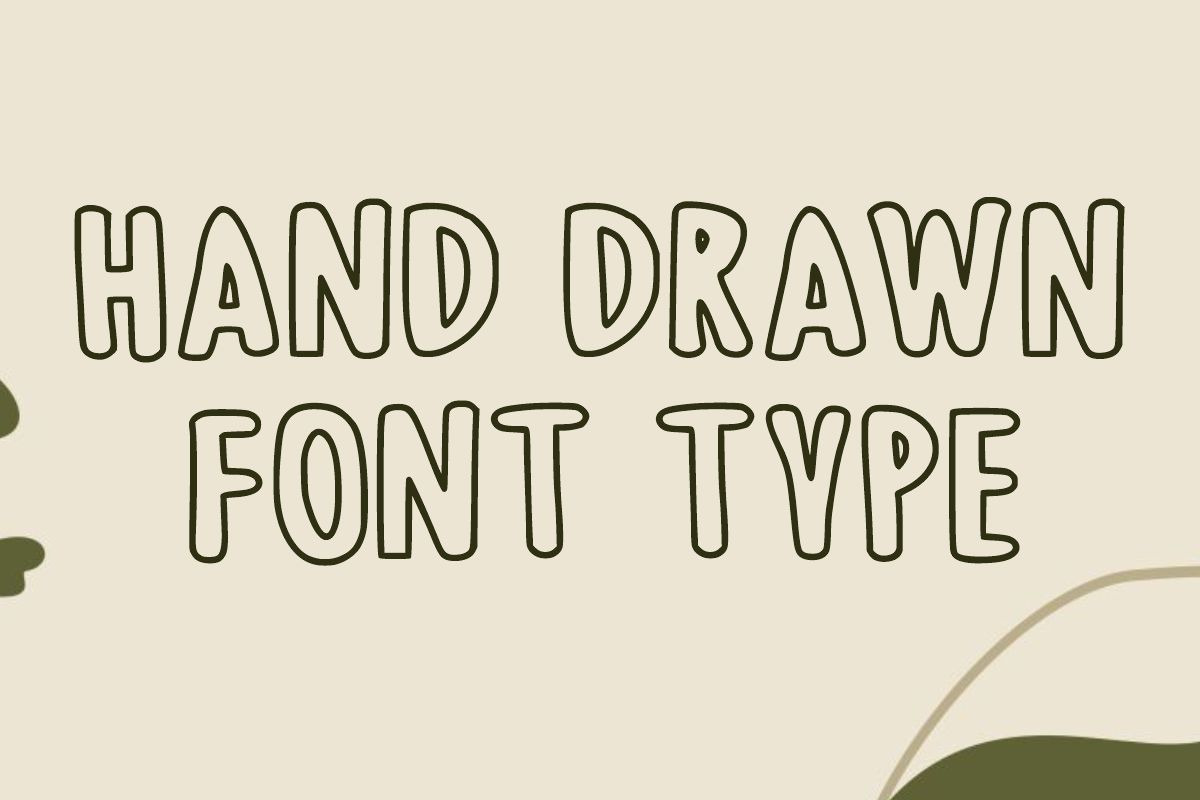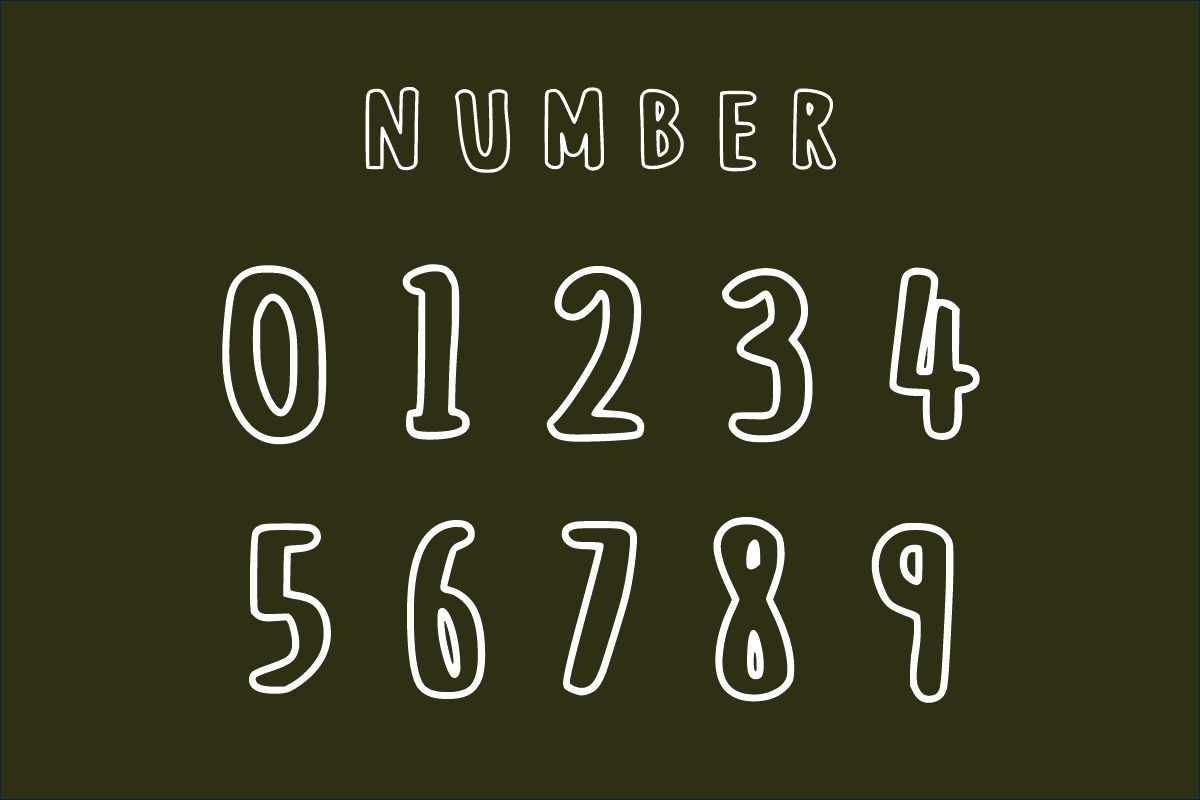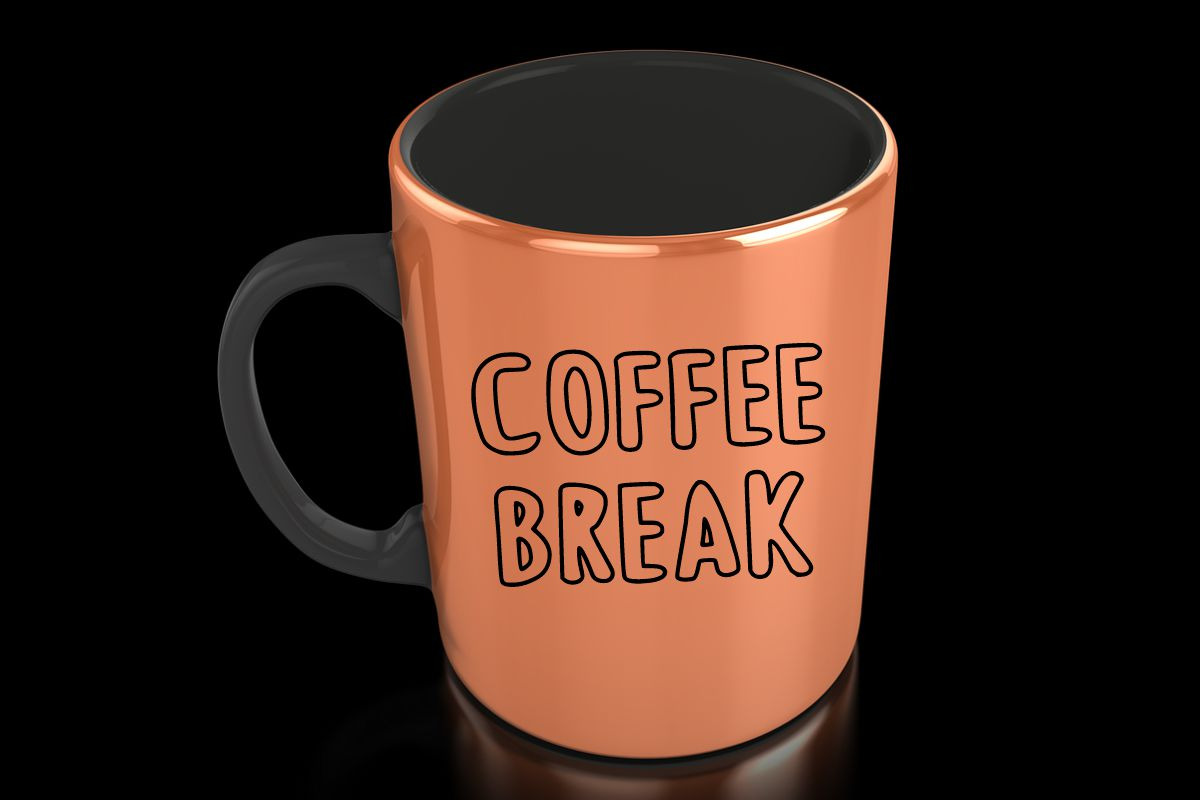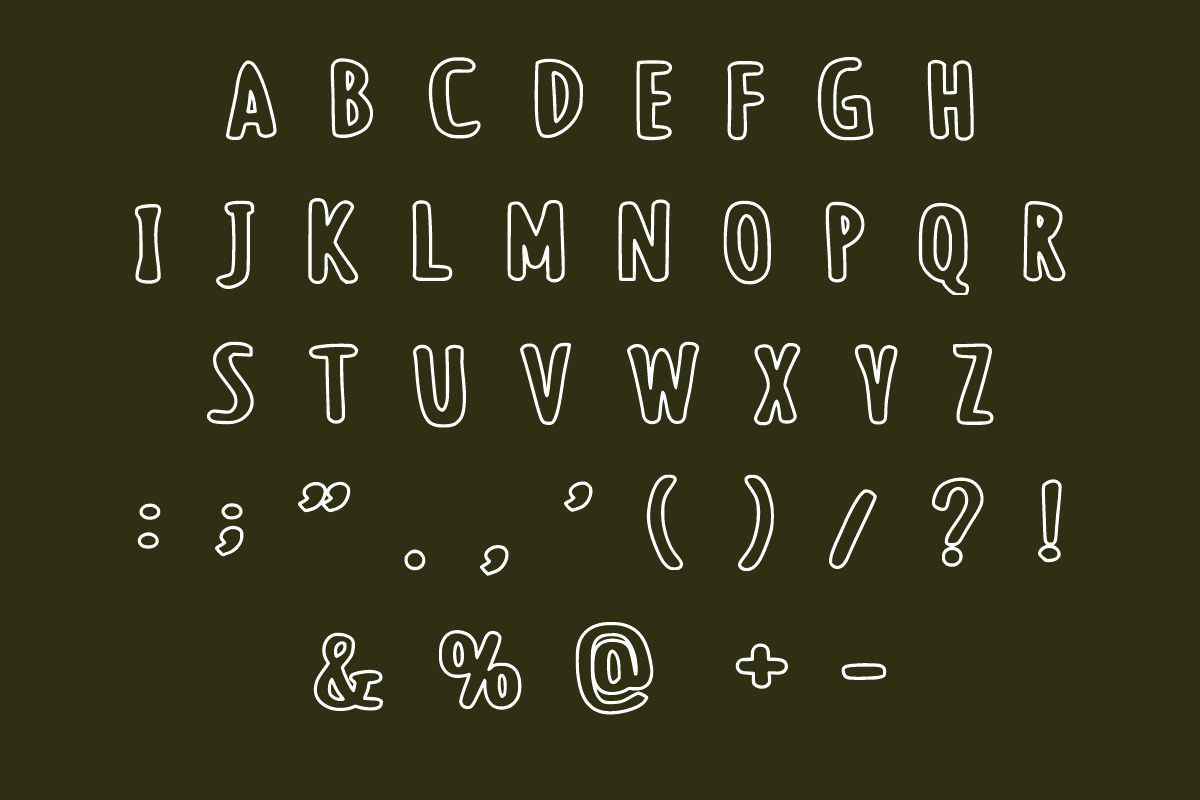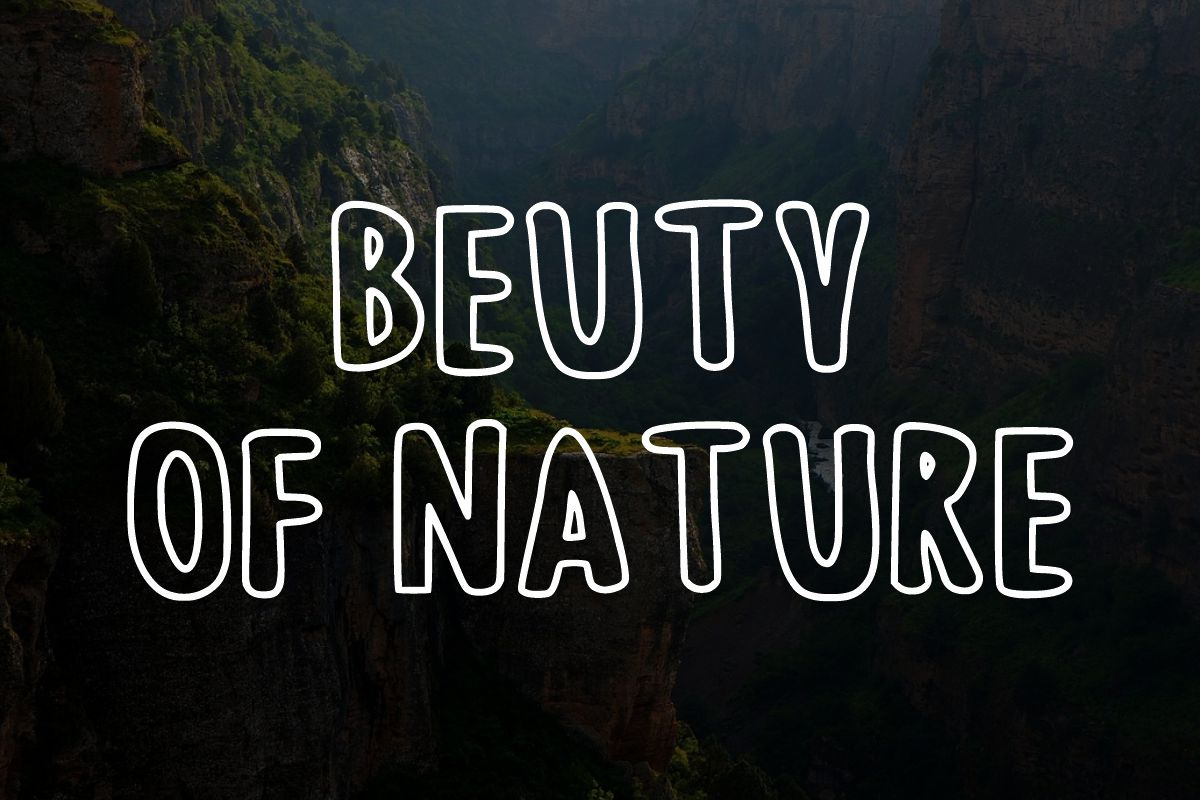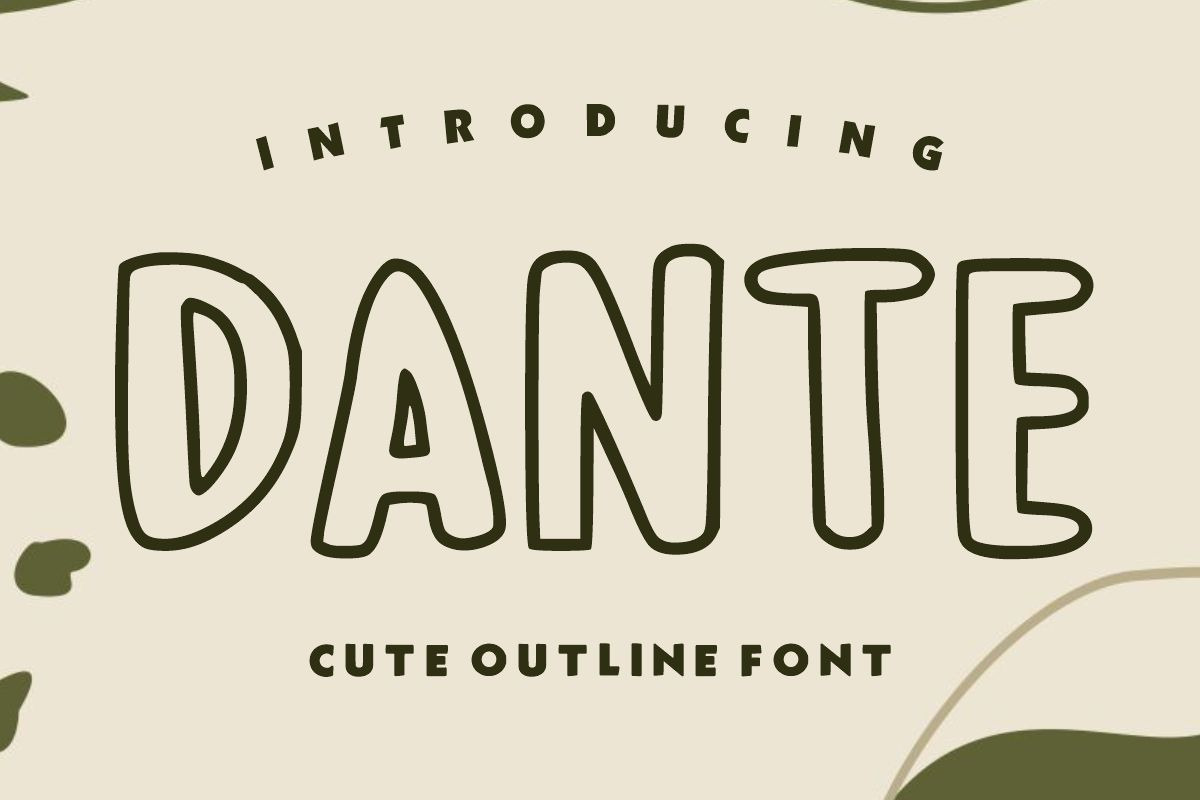
DANTE Outline Font
Dante is Line a cute, thin, simple, and friendly display font. Its informal style and casual vibe will make this font a go-to choice for each of your creations that require a relaxed touch. It is suitable for any product packaging, invitation, quote, t-shirt, label, poster, or logo that you wish to develop!